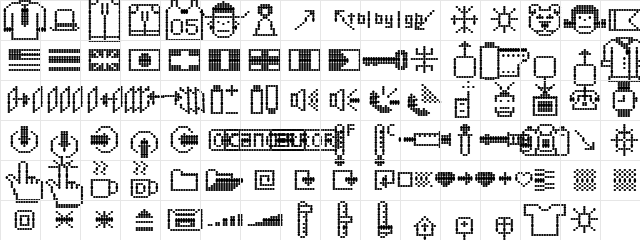
Dotto Regular
Design Context for Dotto Typeface
Dotto celebrates the constraints of early digital type, turning pixel geometry into a distinctive and immediately recognisable style.
A natural choice for retro game titles, chiptune music branding, 8-bit UI, and digital nostalgia projects.
Pro Tip: Pair Dotto with flat colour palettes and simple geometric UI elements to reinforce its digital aesthetic.